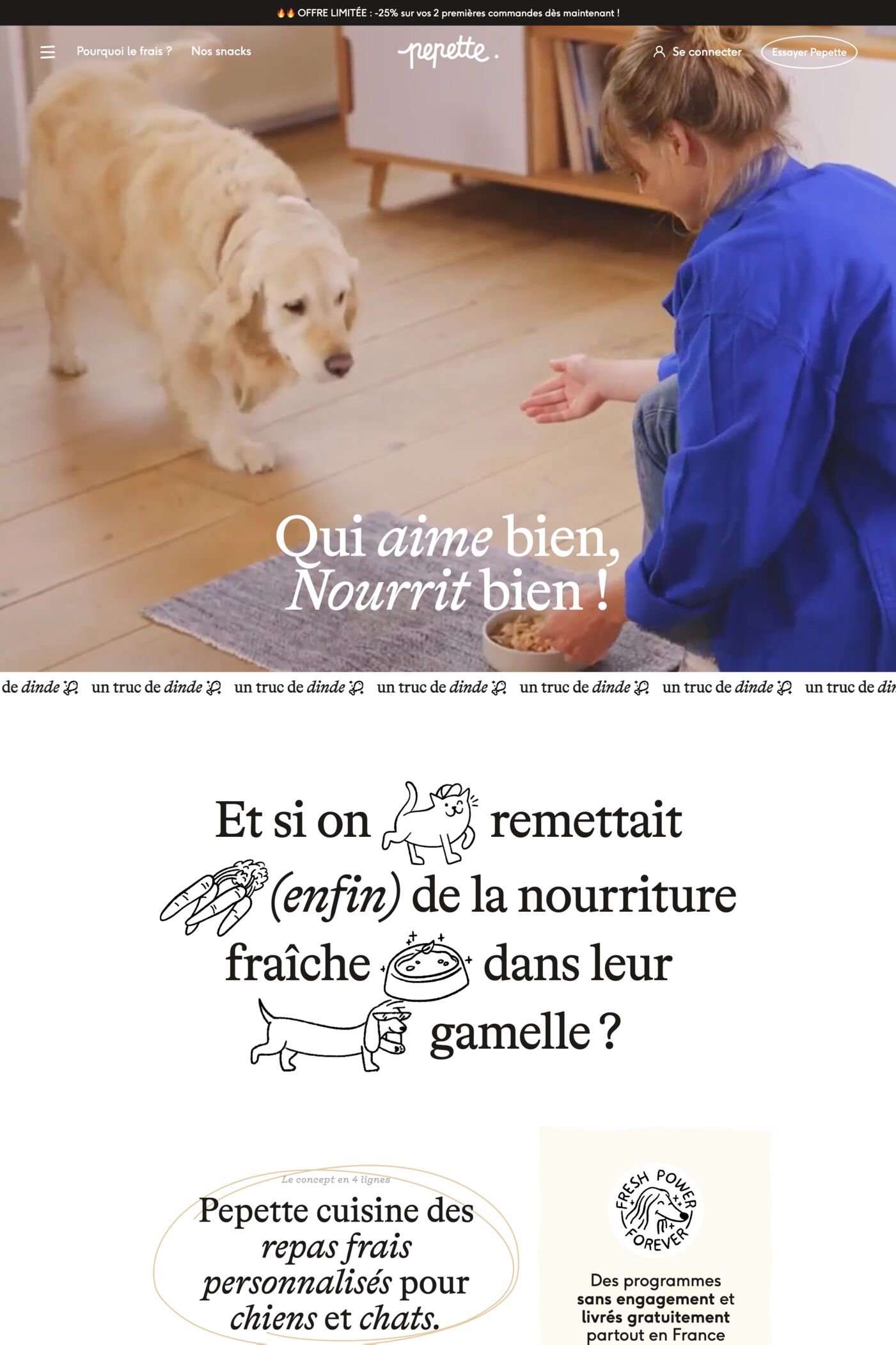
F37 Ginger is a sans-serif typeface from F37 Foundry.
Since its birth in 2013, this sleek, geometric san-serif font has been used by some of the world’s biggest companies.